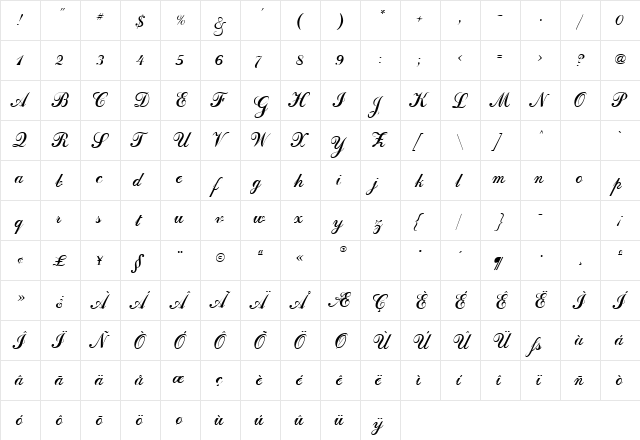
GE Darlah Script Normal
Design Context for GE Darlah Script Typeface
GE Darlah Script flows with the natural rhythm of handwritten lettering, making it ideal for designs that call for warmth and personal expression.
Font Pairing: Combine GE Darlah Script with a simple geometric sans for maximum contrast — the tension between flowing curves and clean structure is a classic typographic pairing.
Pro Tip: Pair GE Darlah Script with a clean sans-serif for supporting text. The contrast between fluid script and geometric structure creates an elegant typographic hierarchy.